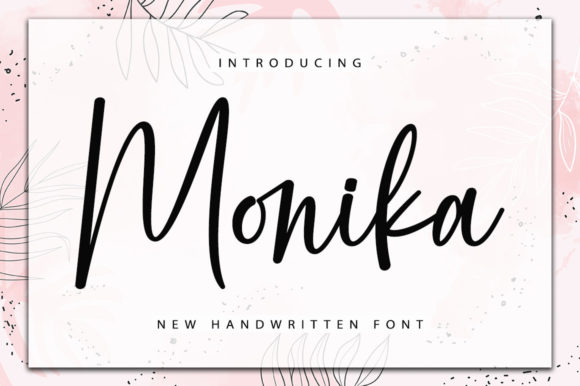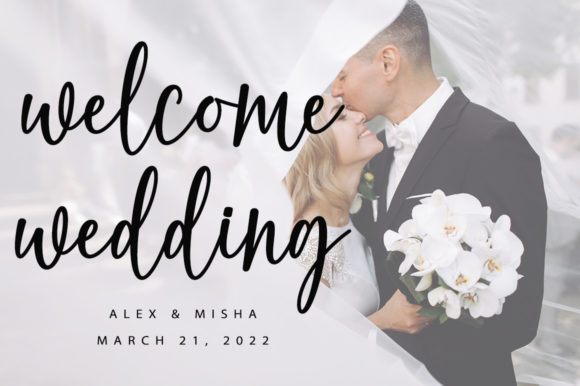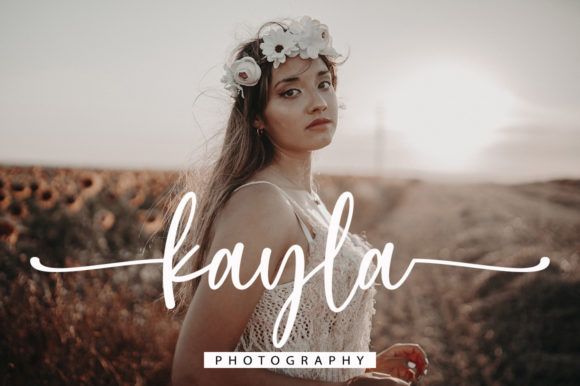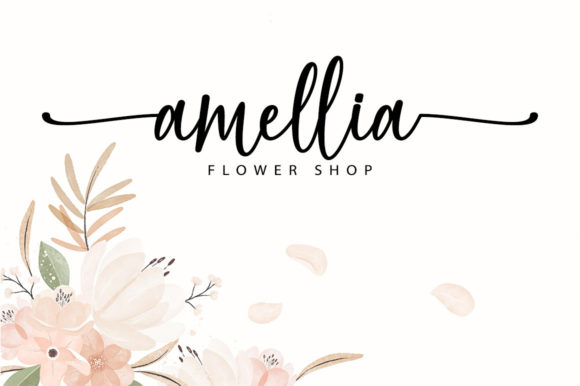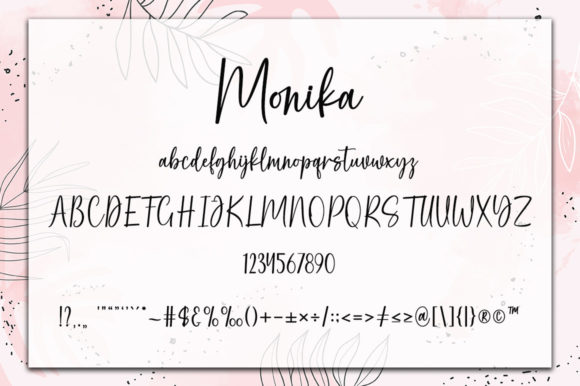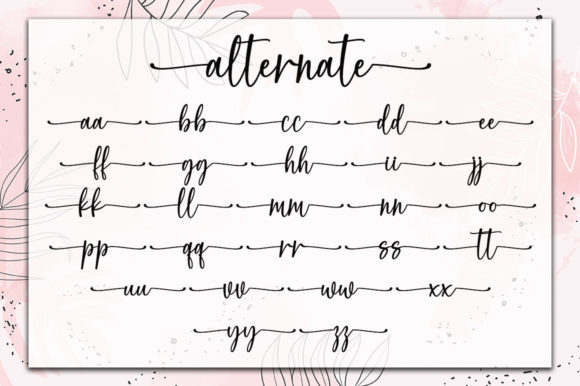
About Monika Font
“Monika” is a fluid and graceful handwritten font, characterized by its elegant touch, making it a perfect choice for your favorite projects. This font exudes a sense of flow and sophistication that can enhance a wide range of design endeavors. Its PUA encoding ensures effortless access to the various glyphs and swashes it offers.
The smooth and flowing strokes of “Monika” bring an element of grace and charm to your designs. Whether used for invitations, branding, quotes, or any creative work, this font has the ability to add a touch of refinement and personality.
The PUA encoding is a valuable feature, allowing you to easily access and incorporate the font’s unique elements. With a variety of glyphs and swashes at your fingertips, you have the freedom to experiment and create designs that are truly your own. This flexibility empowers you to tailor the font to your specific vision, resulting in designs that are both distinctive and captivating.
Incorporating “Monika” into your projects means embracing its flowing elegance and the accessibility provided by its PUA encoding. With its graceful demeanor and customizable features, this font becomes a tool that helps you craft designs that are not only visually appealing but also reflect your creative essence.